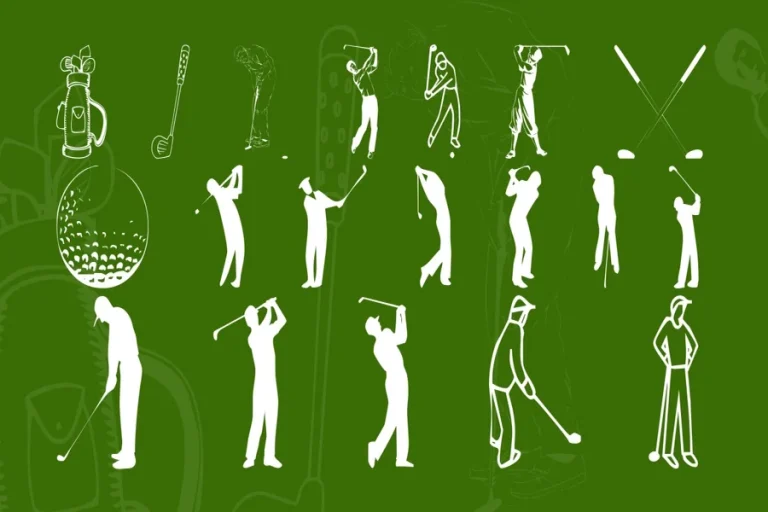
Golf Font Style for Elegant Modern Design Projects
Golf Font
The golf font represents more than letters on a page. It reflects a lifestyle. It expresses focus patience and quiet confidence. When people see a golf font they often feel calm and refined. The design speaks softly but carries strong meaning.
Typography can change the way a message feels. Golf font creates a mood of balance and elegance. It avoids loud shapes and heavy strokes. Instead it uses smooth lines and classic forms. This makes the message feel thoughtful and controlled.
The sport of golf itself is about precision and grace. Golf font mirrors those qualities. It feels steady. It feels clean. It feels timeless. Designers use this font style when they want to reflect professionalism and class.
From luxury branding to sports design the golf font continues to build trust and style in every project.
The Origins and Inspiration of Golf Font
The roots of golf font are connected to tradition. Golf as a sport began centuries ago and quickly became associated with discipline and refinement. The visual language of golf followed the same path.
Early golf clubs and tournaments used elegant lettering on signs and scorecards. The fonts were often serif based with clean strokes and balanced spacing. These designs reflected the formal culture of the game.
As printing and design evolved the idea of a golf font expanded. Designers began creating typefaces inspired by the calm beauty of golf courses and the quiet strength of players. These fonts avoided chaos. They focused on harmony.
Modern golf fonts still carry this spirit. They are simple and graceful. They respect white space. They allow the content to breathe. Each letter feels intentional.
This history gives golf font its timeless quality. It does not chase trends. It remains steady and reliable.
Why Designers Choose Golf Font
Designers choose golf font because it communicates trust instantly. Without saying anything the font makes the audience feel that the brand is stable and professional.
This font style fits perfectly with luxury and lifestyle branding. Golf clubs resorts fashion brands and event organizers use it to create a premium image. It makes every design feel well crafted.
Another reason designers love golf font is readability. The clean structure of the letters allows comfortable reading on print and screen. Long texts remain pleasant. Headlines stay elegant.
Golf font also works well in sports branding. It balances strength with grace. It reflects competition without aggression. That makes it ideal for tournament posters equipment packaging and sports publications.
In a world of fast visuals golf font brings calm focus. It invites the viewer to slow down and engage.
How Golf Font Is Used in Modern Design
Golf font appears in many creative fields. In branding it is used for logos brochures business cards and signage. The font helps establish credibility and class.
Golf courses and clubs use this font on scorecards uniforms banners and promotional materials. It reinforces tradition and pride.
In digital design golf font is often found on websites and mobile apps related to sports travel and lifestyle. It enhances the user experience with its smooth appearance. Event planners use golf font for invitations posters and programs. It makes events feel refined and memorable.
Publishers use this font in magazines books and editorial layouts. It keeps content clean and engaging. Even outside the world of sports golf font influences modern design with its quiet strength and lasting appeal.
The Future of Golf Font in Typography
The future of golf font is secure. As minimal and clean design continues to dominate visual culture this font style fits perfectly into modern aesthetics. Designers are adapting golf fonts for new platforms. Variable fonts responsive typography and digital motion design allow these fonts to evolve while preserving their classic soul.
As brands move toward authenticity and quality golf font will become even more important. It communicates reliability and focus in an age of distraction. The timeless nature of golf font ensures its continued presence. It does not follow trends. It builds identity that lasts.
Final Thoughts on Golf Font
Golf font is not only about sports. It is about attitude. It represents patience precision and confidence. Every project that uses golf font gains a sense of order and calm. It turns ordinary content into something meaningful and polished. When designers choose golf font they choose balance. They choose clarity. They choose design that feels strong without being loud.